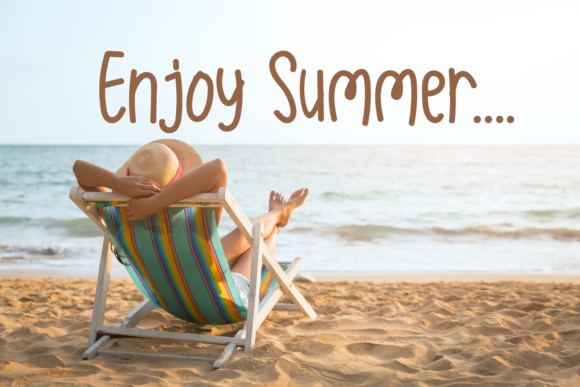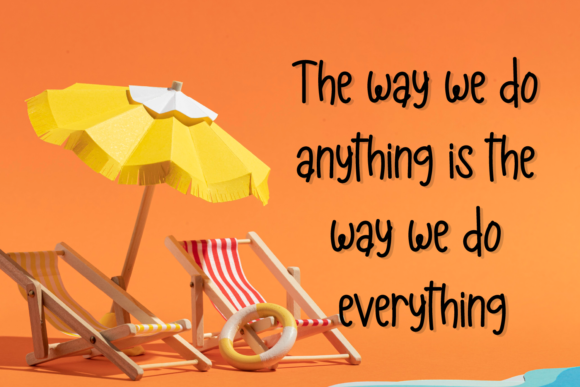
About Vintage Summer Font
Vintage Summer is a thin lettered and graceful script font. Fall for its ravishing style and use it to create gorgeous wedding invitations, beautiful stationary art, eye-catching social media posts, and much more!